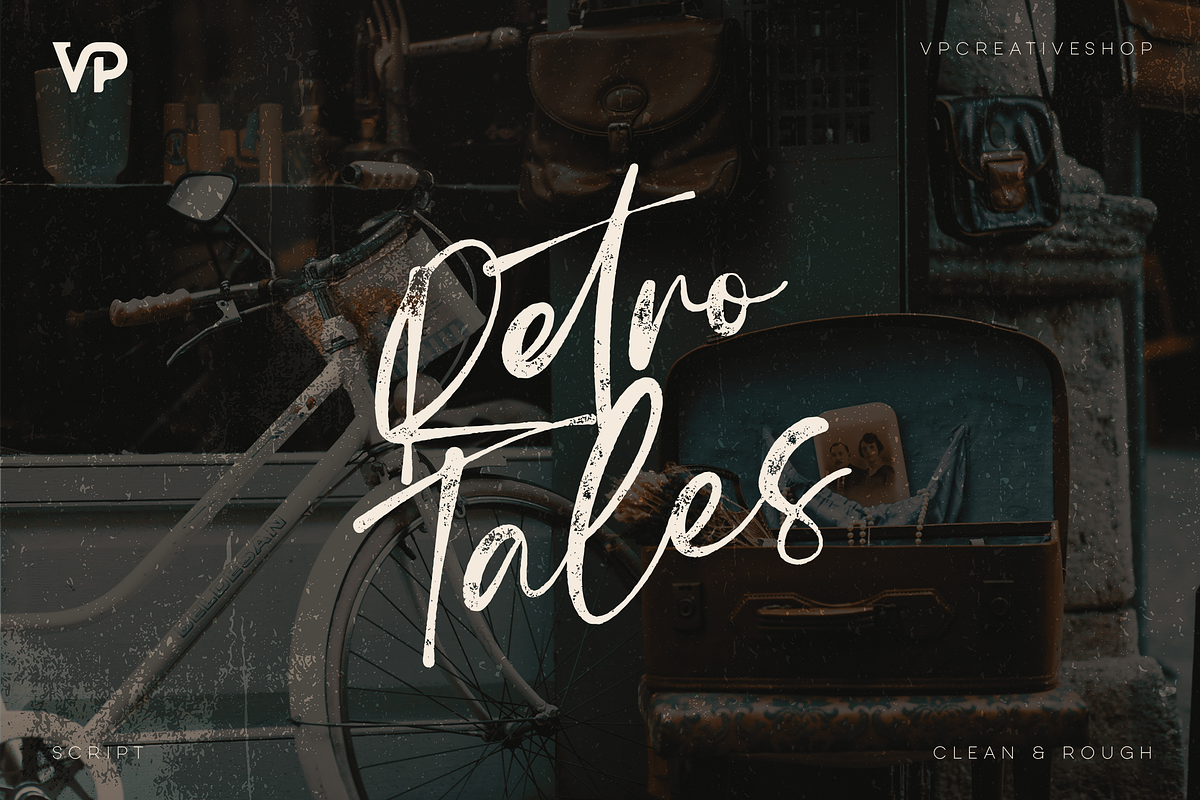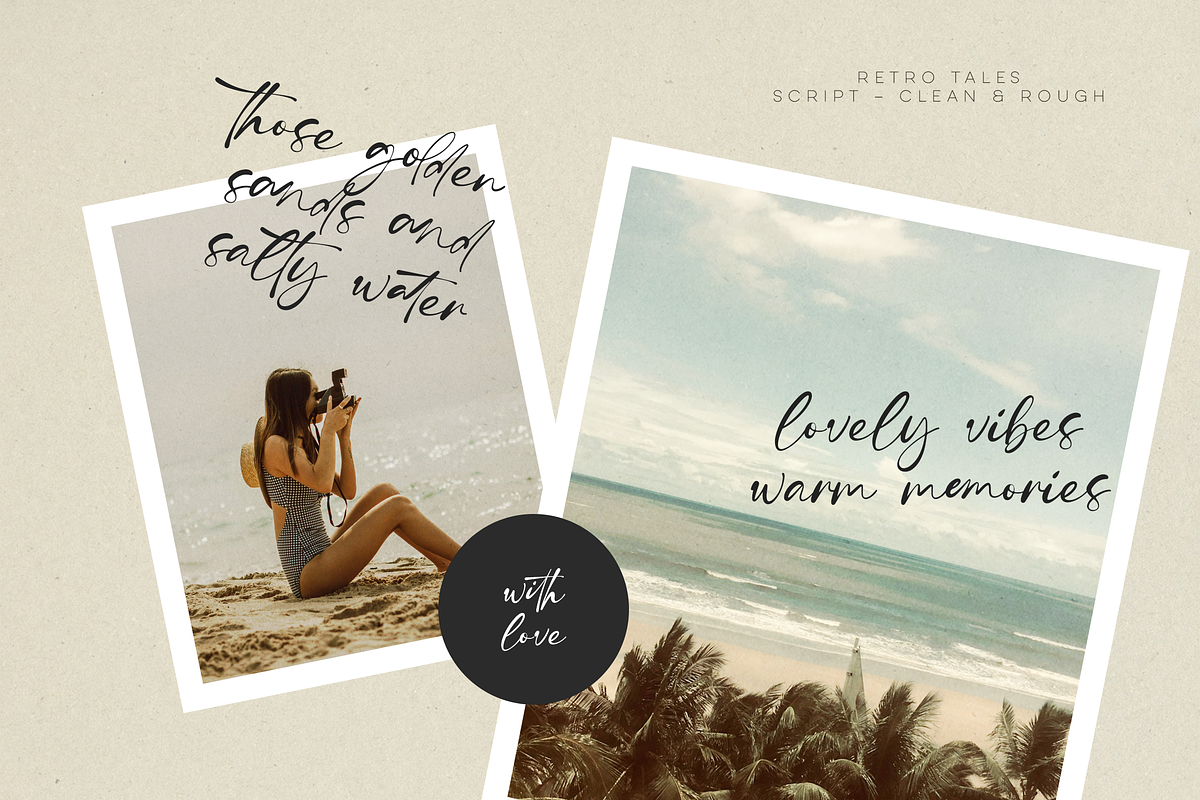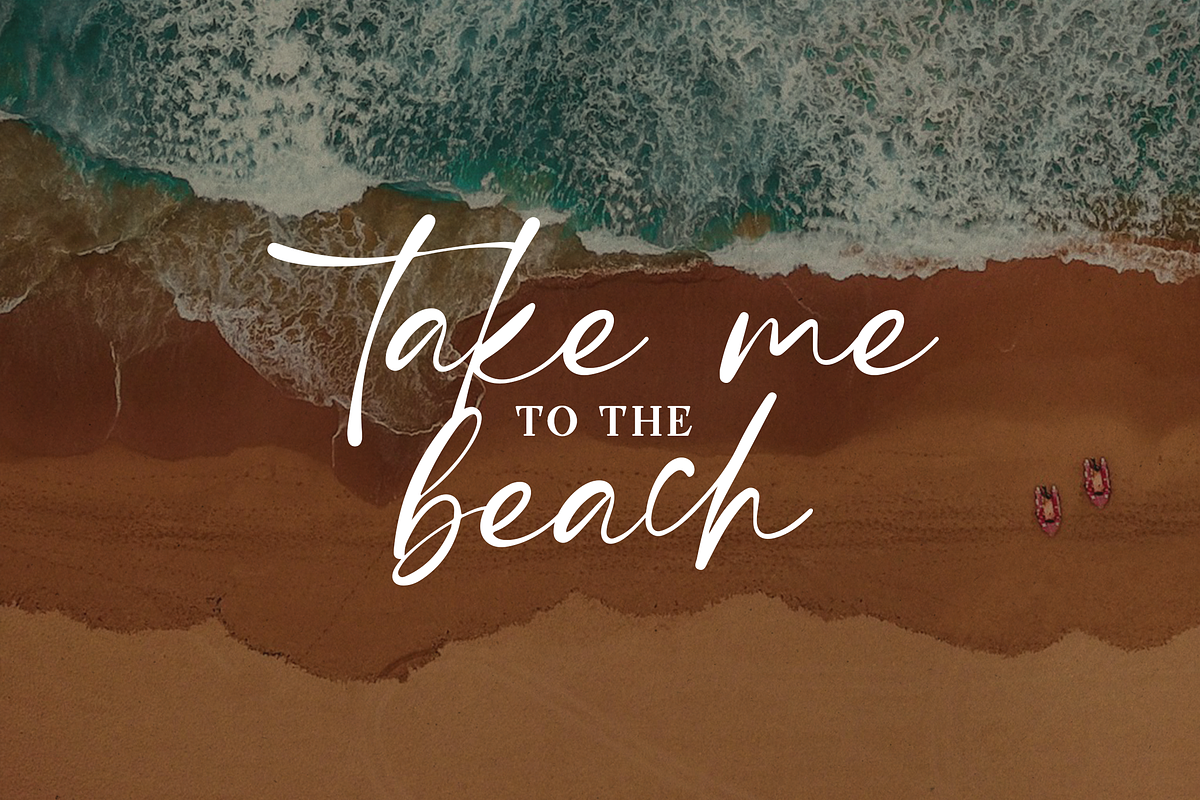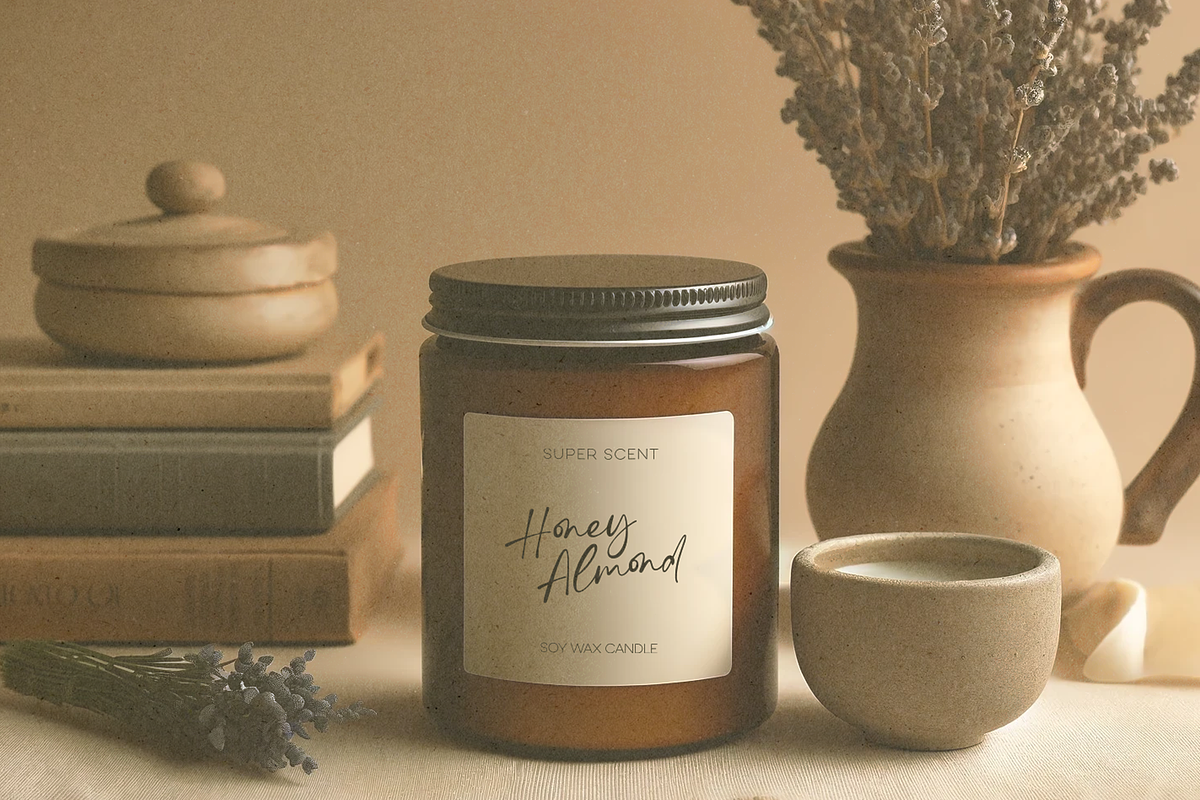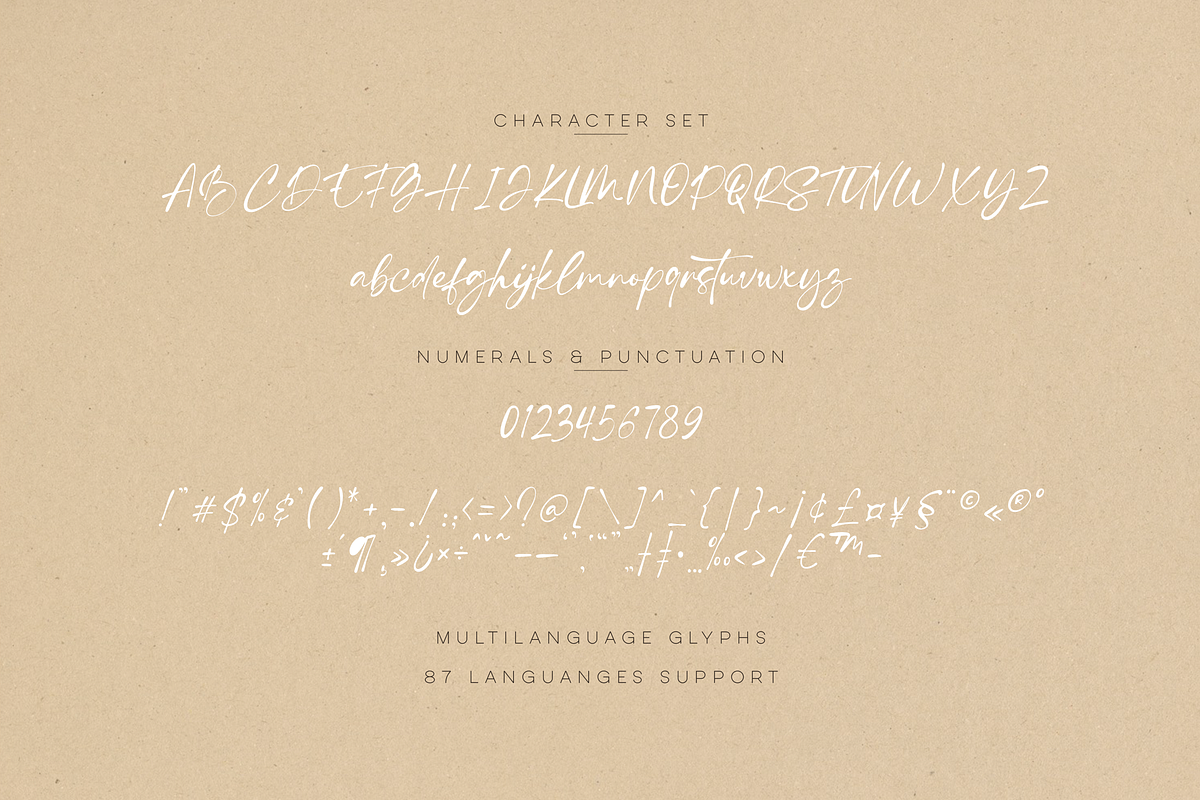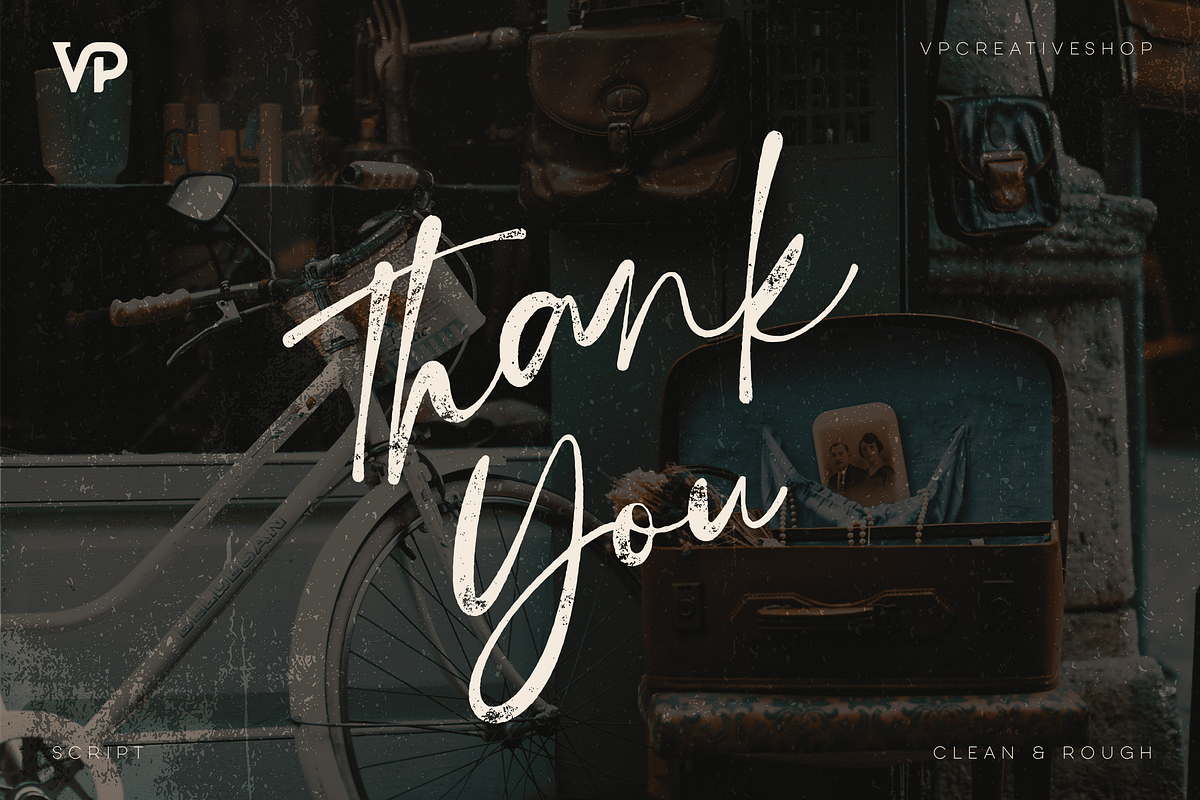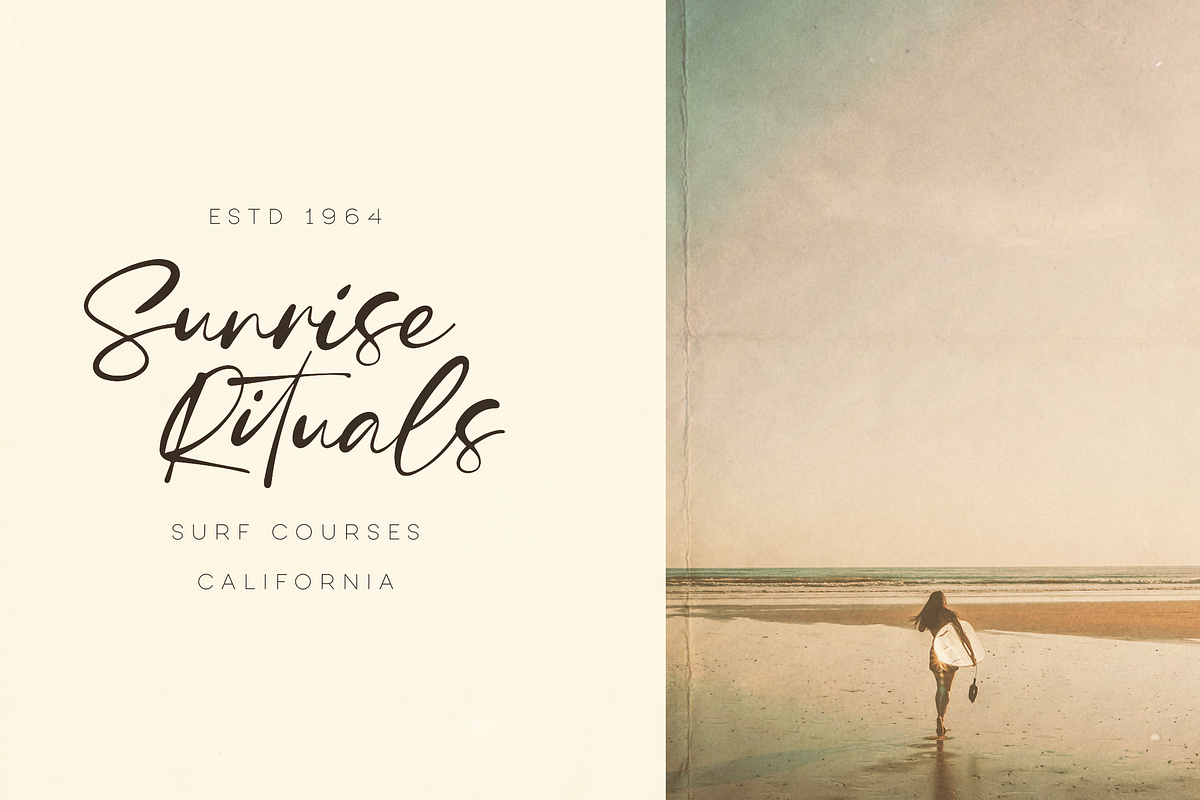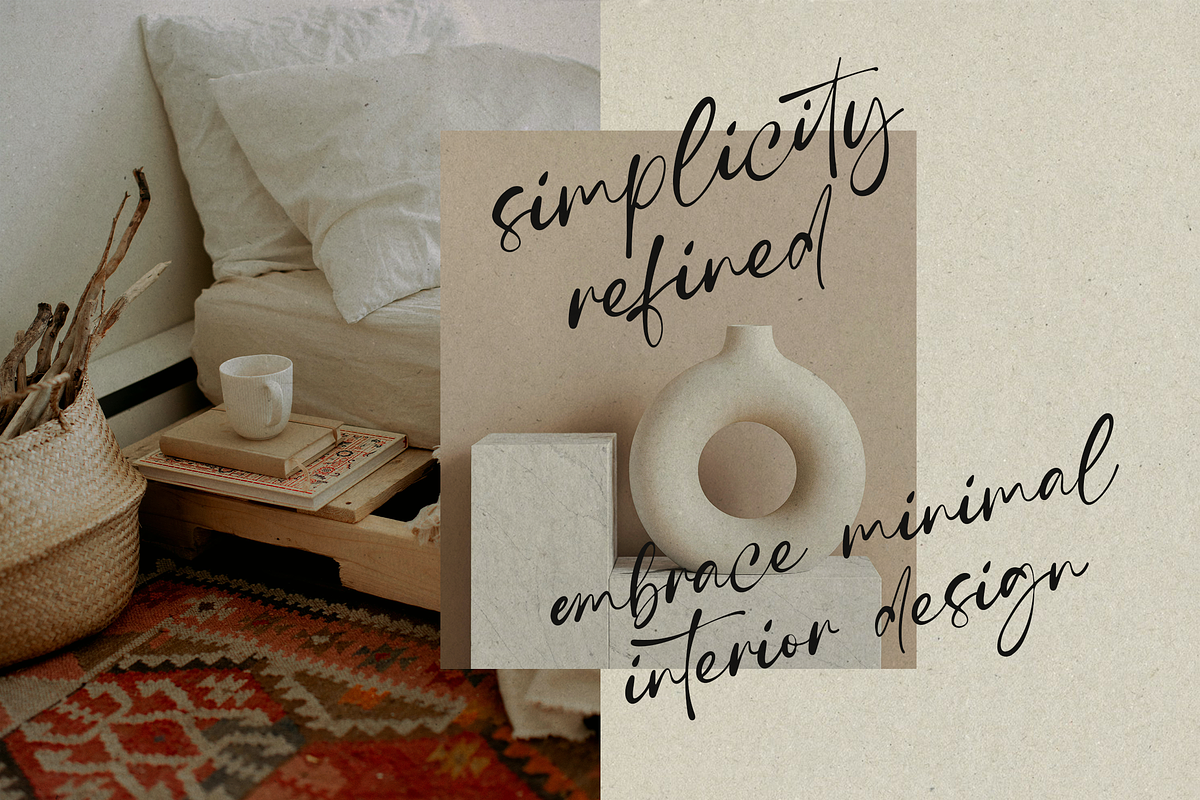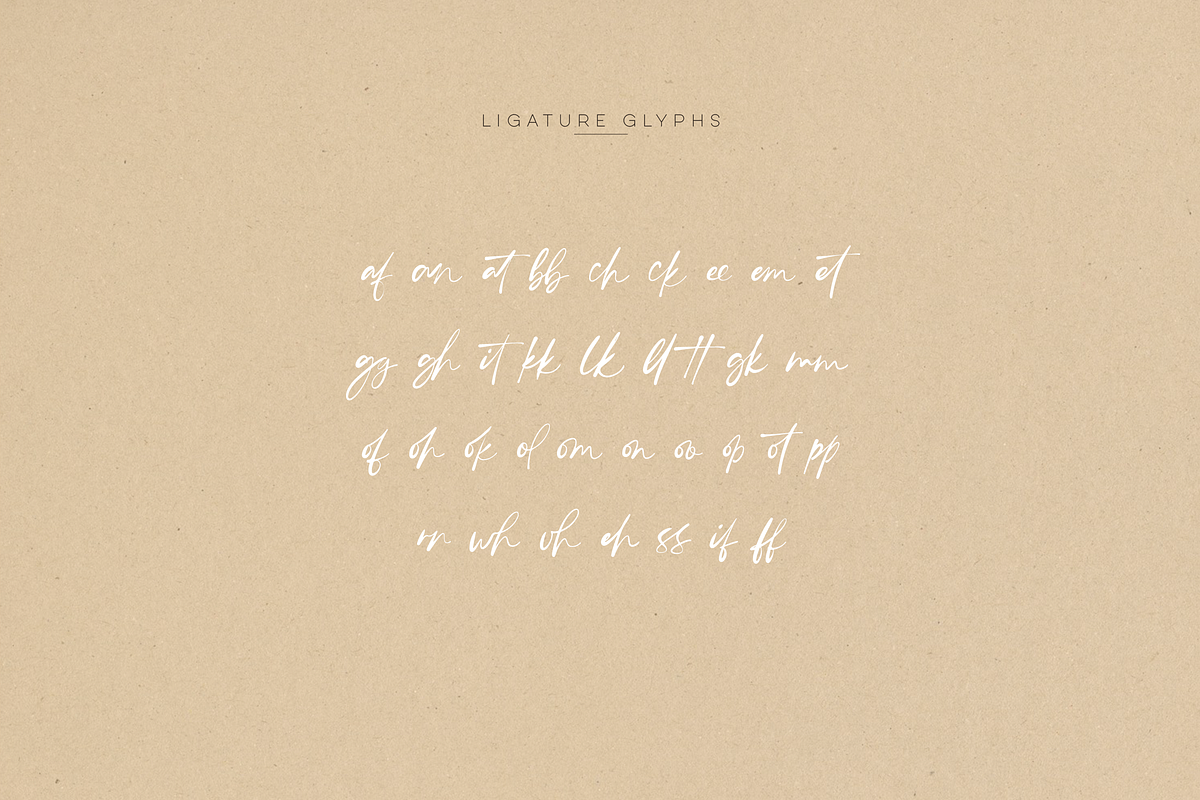
Retro Tales - clean and rough fonts
Introducing Retro Tales Script – a meticulously crafted typeface designed to bring a touch of nostalgic charm to your projects. This versatile script font offers both clean and rough versions, allowing you to choose the perfect texture for your design needs. With an array of ligature glyphs, Retro Tales Script ensures fluid and natural handwriting aesthetics that enhance readability and visual appeal. Supporting 87 languages, this typeface is ideal for global applications, providing a seamless and elegant solution for any creative endeavor. Whether you’re designing logos, invitations, or branding materials, Retro Tales Script adds a unique, hand-made feel to your work, making it stand out with timeless sophistication.